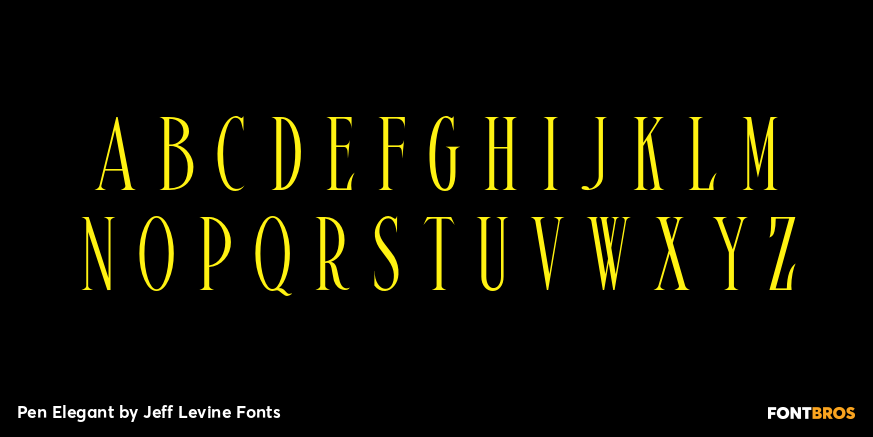
Pen Elegant
A 1918 lettering instruction book by William Hugh Gordon presented a number of lettering styles that were geared toward sign and show card painters along with tips and tricks regarding the correct construction of such signs for maximum effect.
One pen lettered Roman alphabet with a beautiful set of numerals has been recreated digitally as Pen Elegant JNL, which is available in both regular and oblique versions.
To note, Gordon was the co-inventor of the Speedball lettering pen with Ross F. George in 1915.